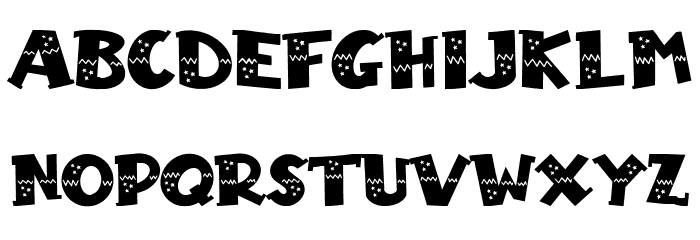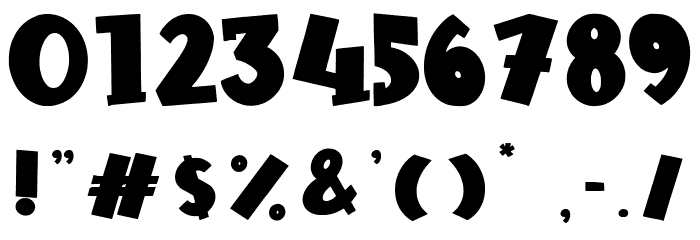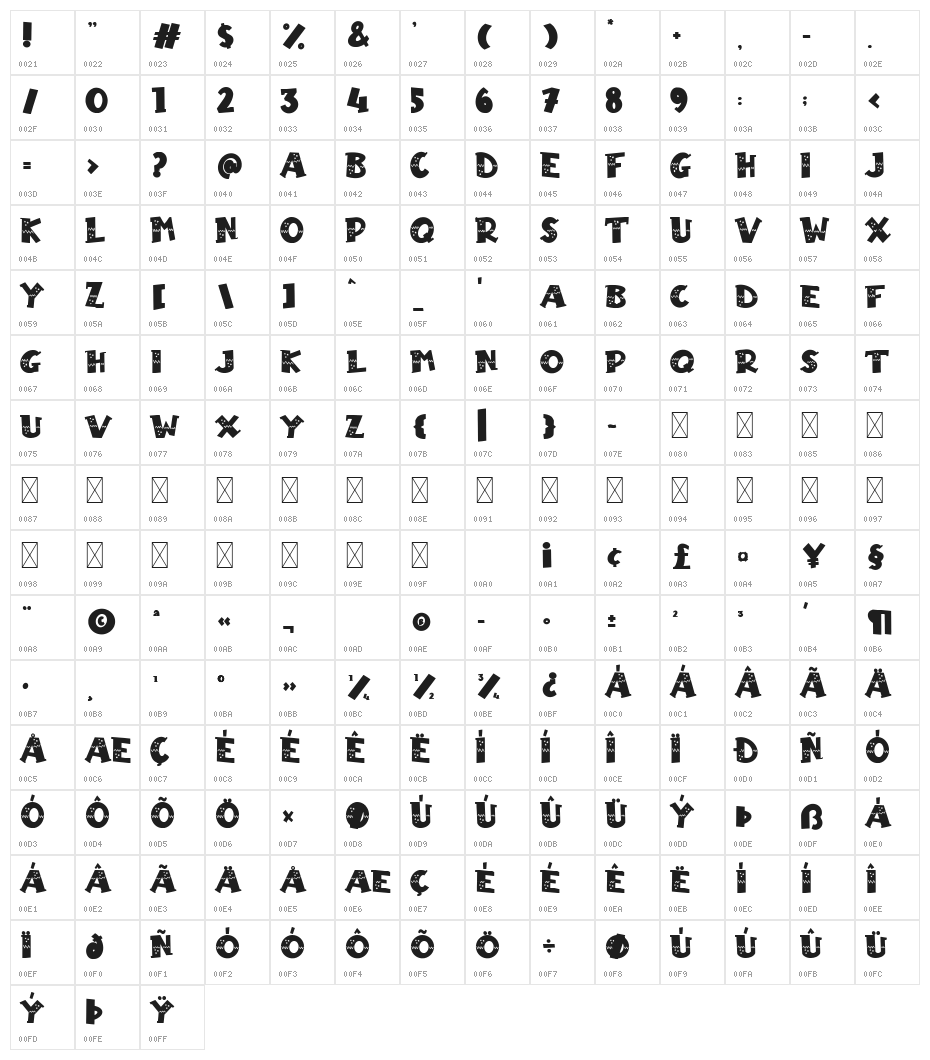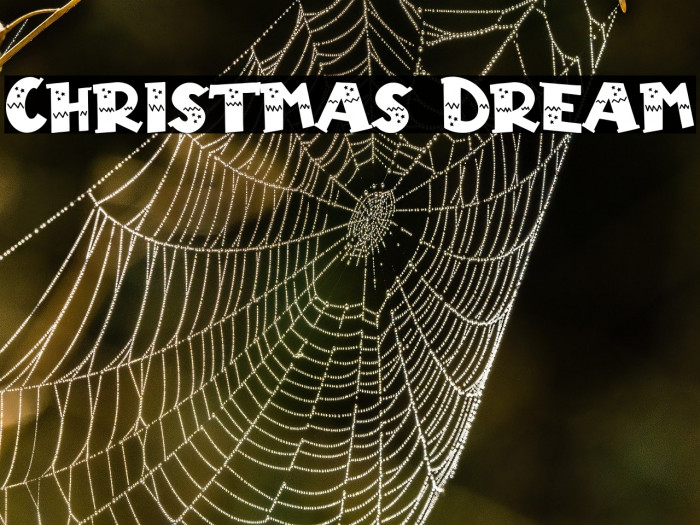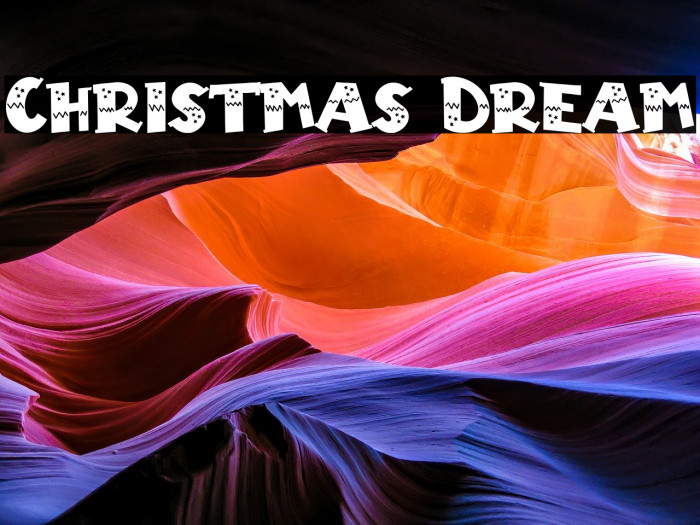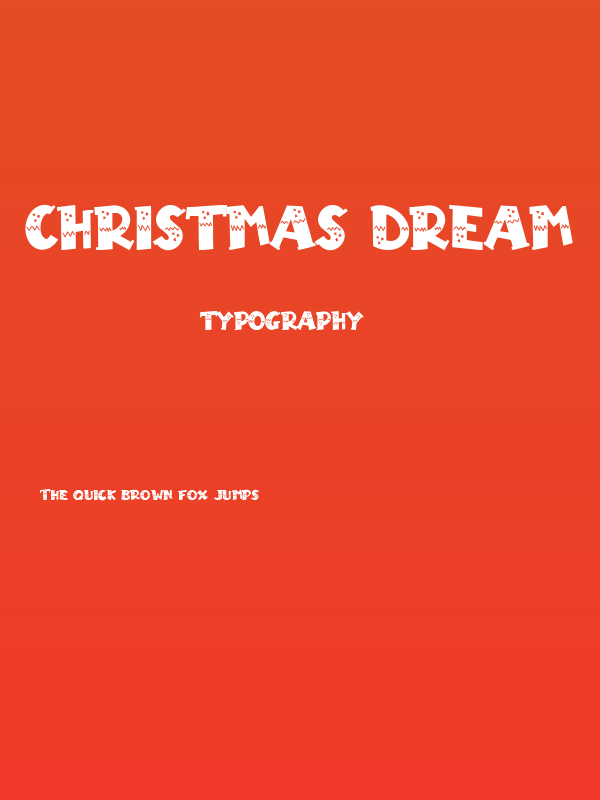
Christmas Dream Font
This playful and festive font features bold, chunky letters adorned with whimsical patterns reminiscent of snowflakes and holiday decorations. The uppercase and lowercase letters are designed with a sense of fun and cheer, making them perfect for holiday-themed projects. The numbers and special characters maintain the same joyful style, ensuring consistency across all text elements. The font's unique design elements evoke a sense of warmth and celebration, ideal for capturing the spirit of the holiday season.
A festive, bold font with playful holiday-themed patterns.
- Proposed Projects: Ideal for Christmas cards, holiday banners, festive invitations, and seasonal advertisements.